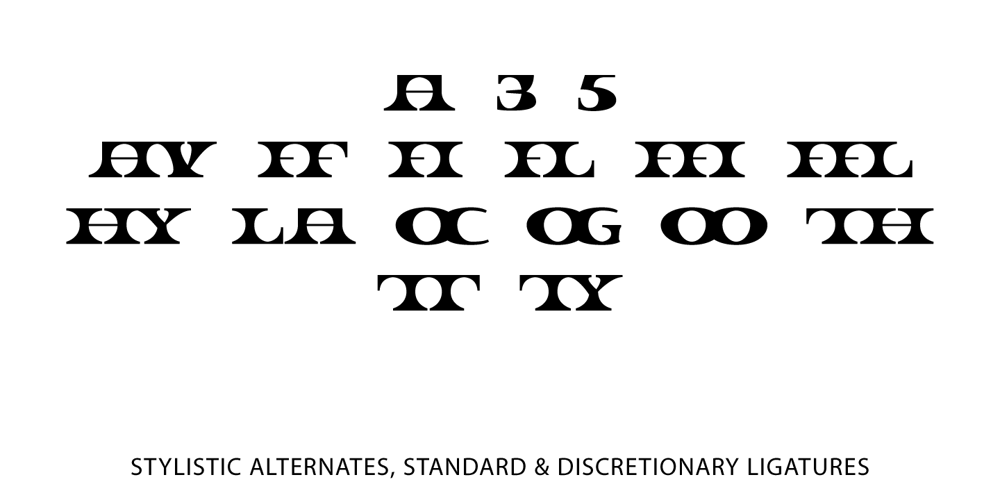
Anvil Font Family was designed by Tim Rolands and published by Tim Rolands. Anvil contains 1 styles and family package options. Lend some weight to your words with Anvil! A bold, extended display face, Anvil is ideal for posters and other large design work as well as identity and logo work. This cross-platform OpenType font contains a number of ligatures, fractions, superior and inferior numerals, alternate forms and accented characters — nearly 300 glyphs in all. Use it with an application like Adobe InDesign to access all the advanced features. Enjoy the future of typography now with this original design!